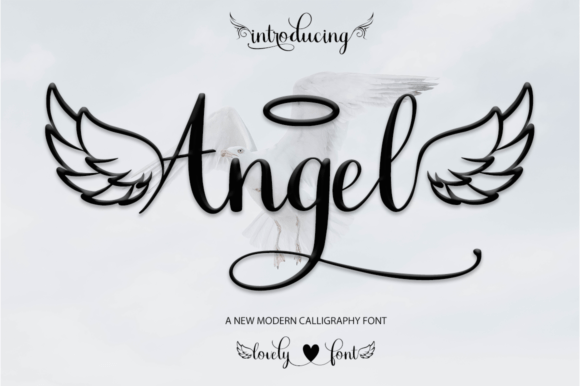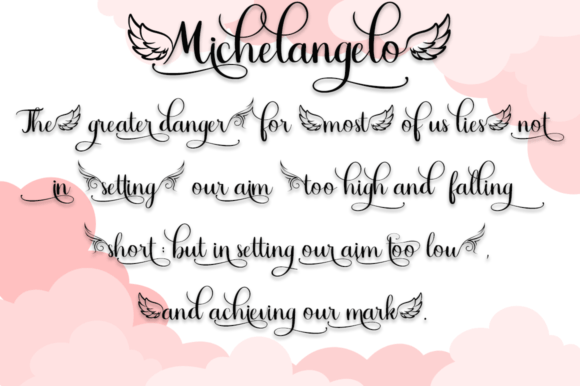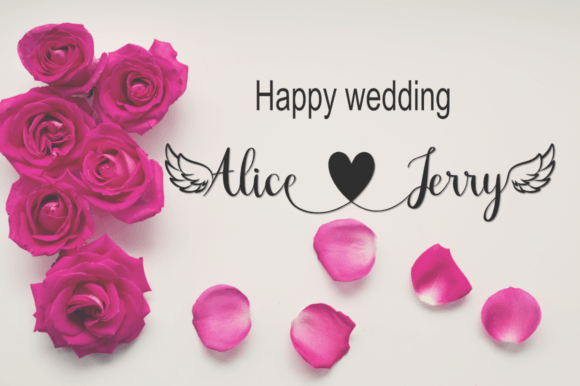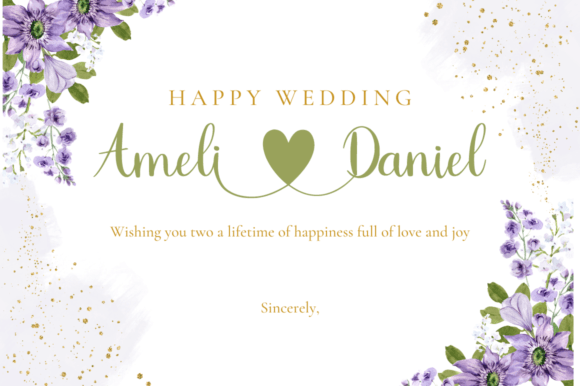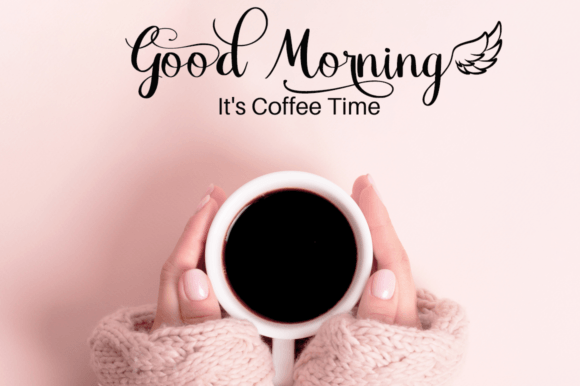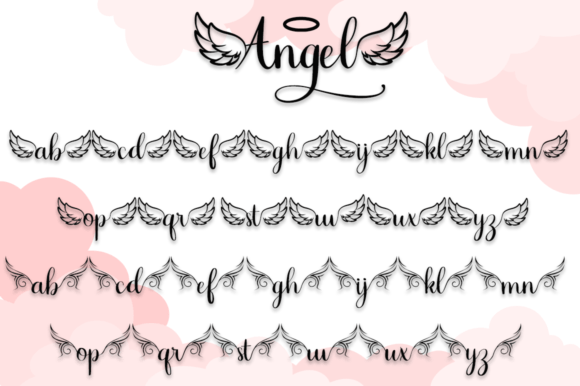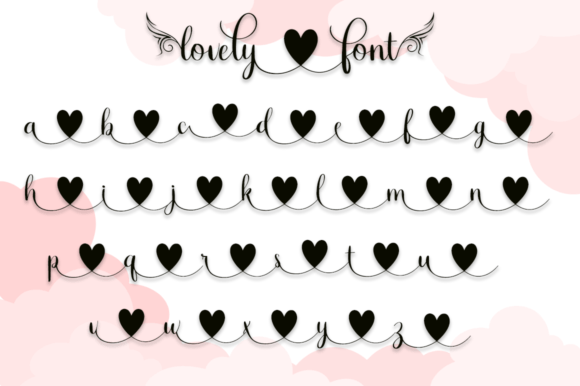
About Angel Font
Angel Script is a modern calligraphy font with casual and beautiful swashes. It can be used for various purposes such as logos, product packaging, wedding invitations, branding, headlines, signage, labels, signatures, book covers, posters, quotes, and more.